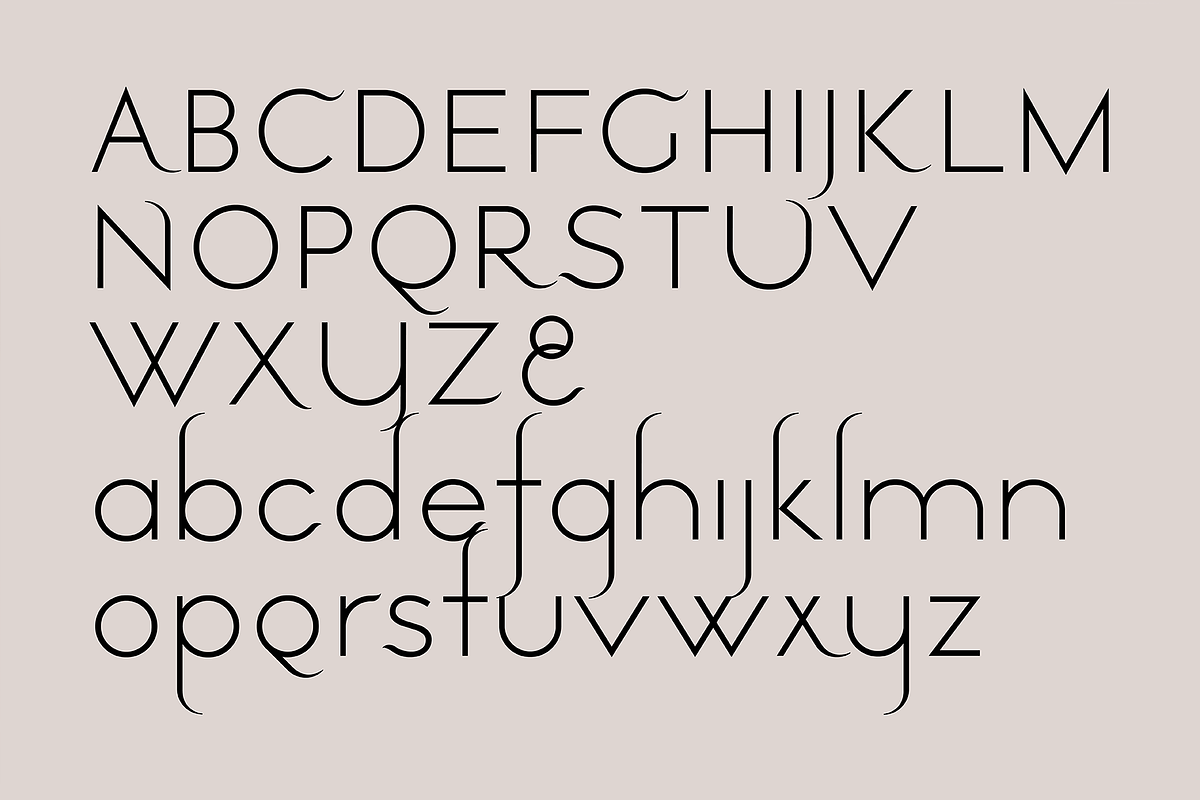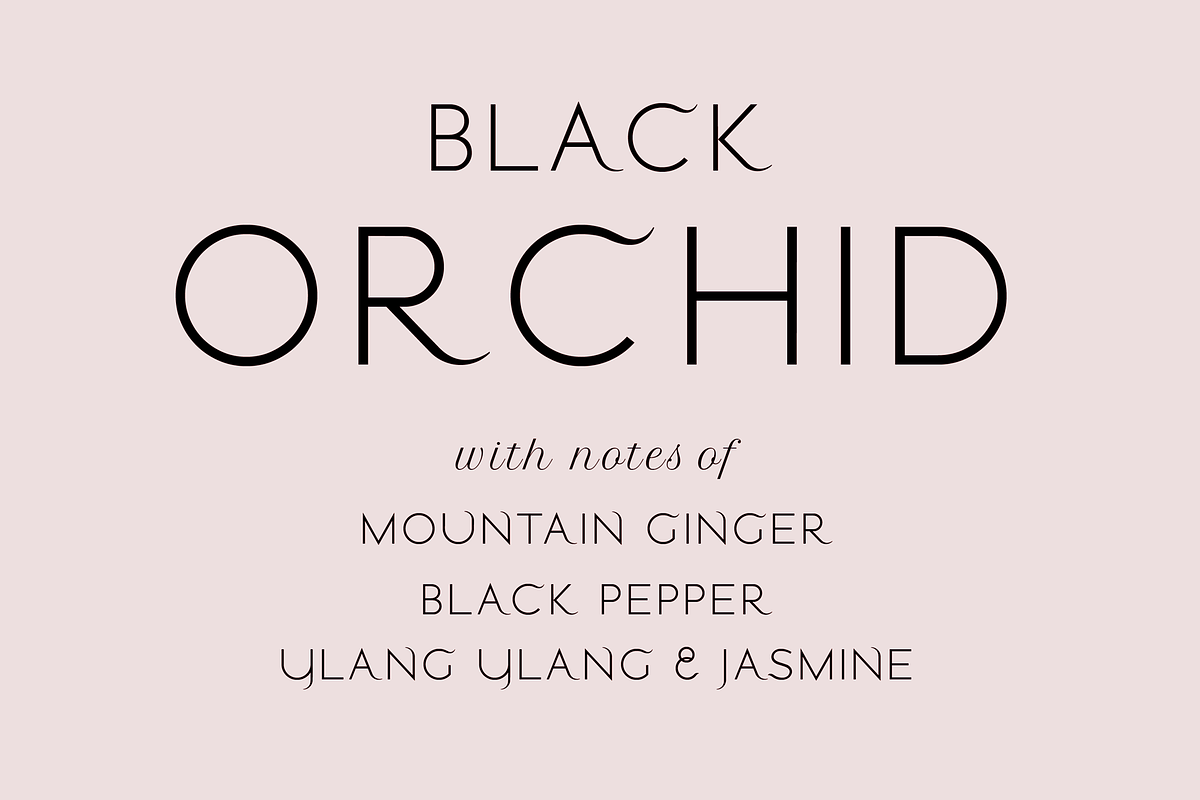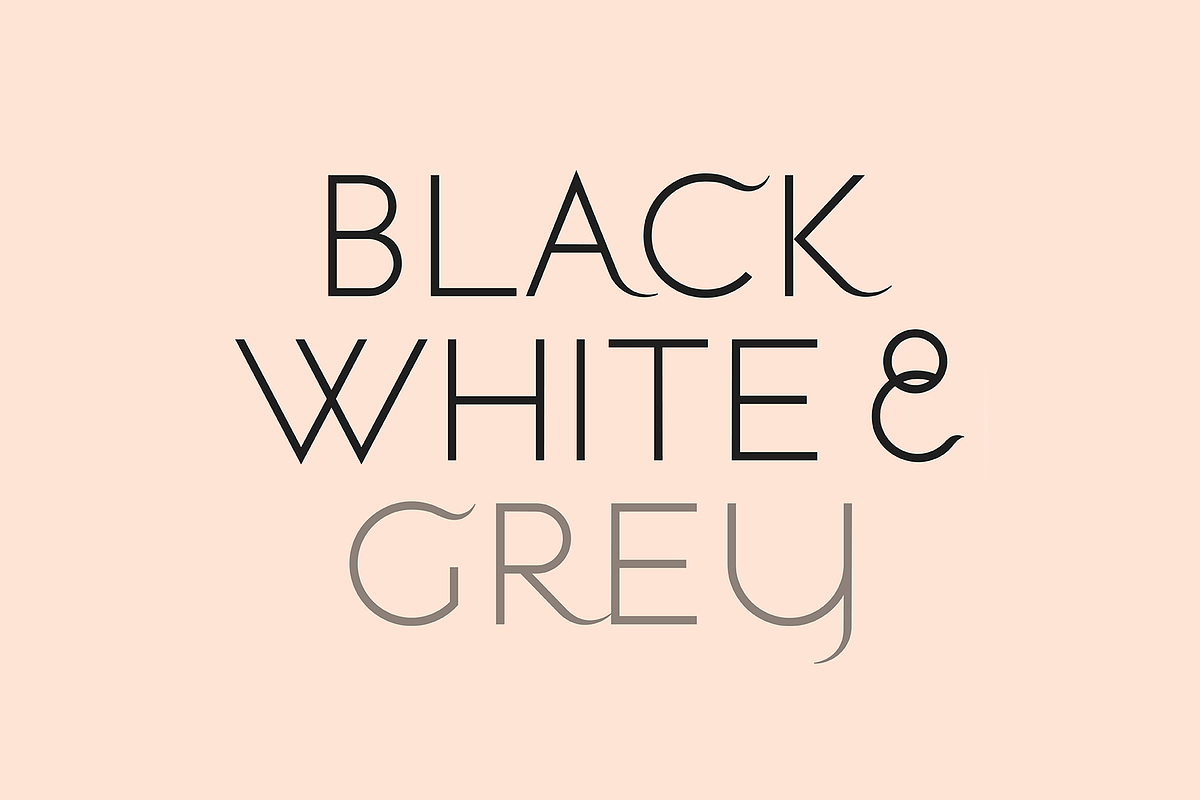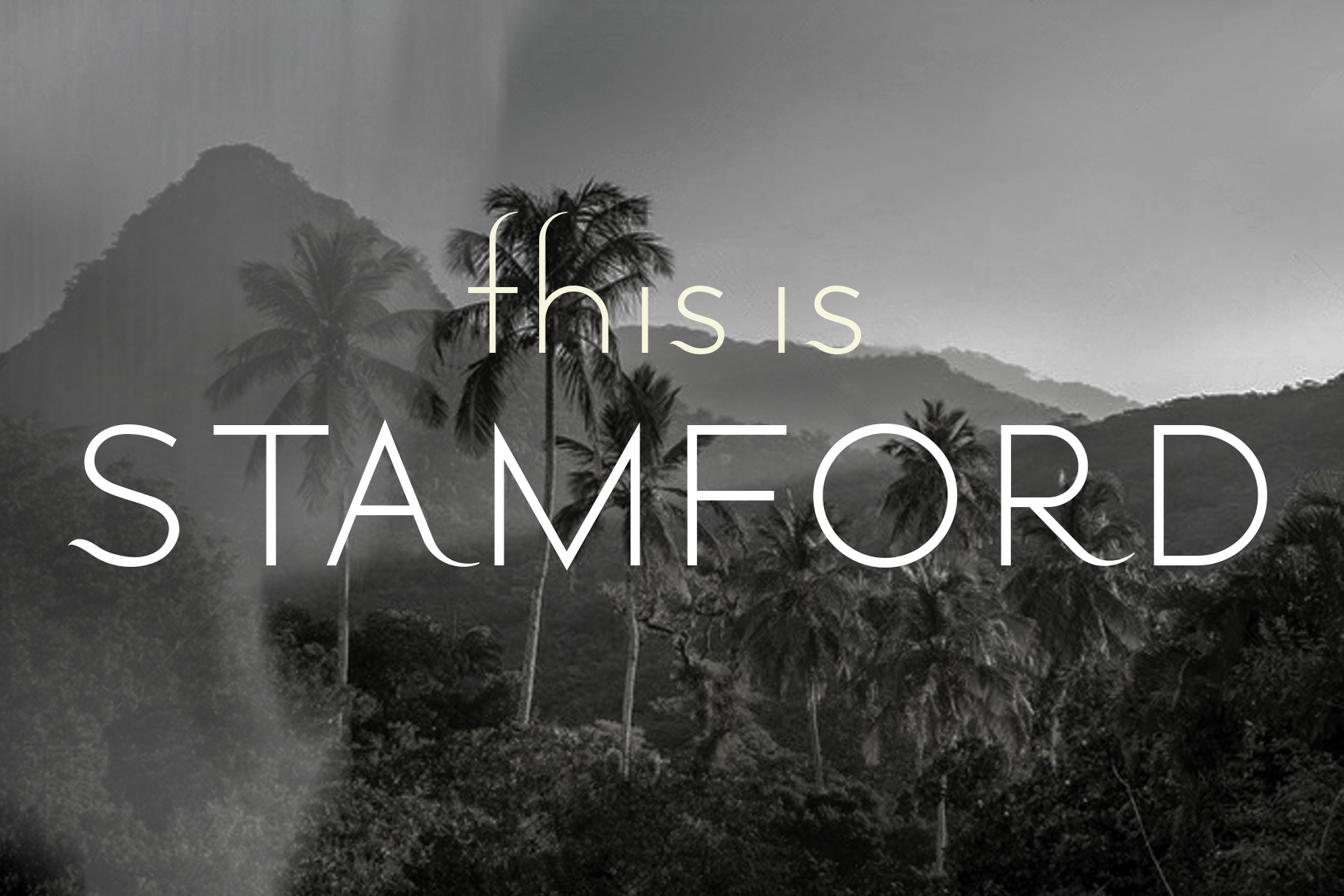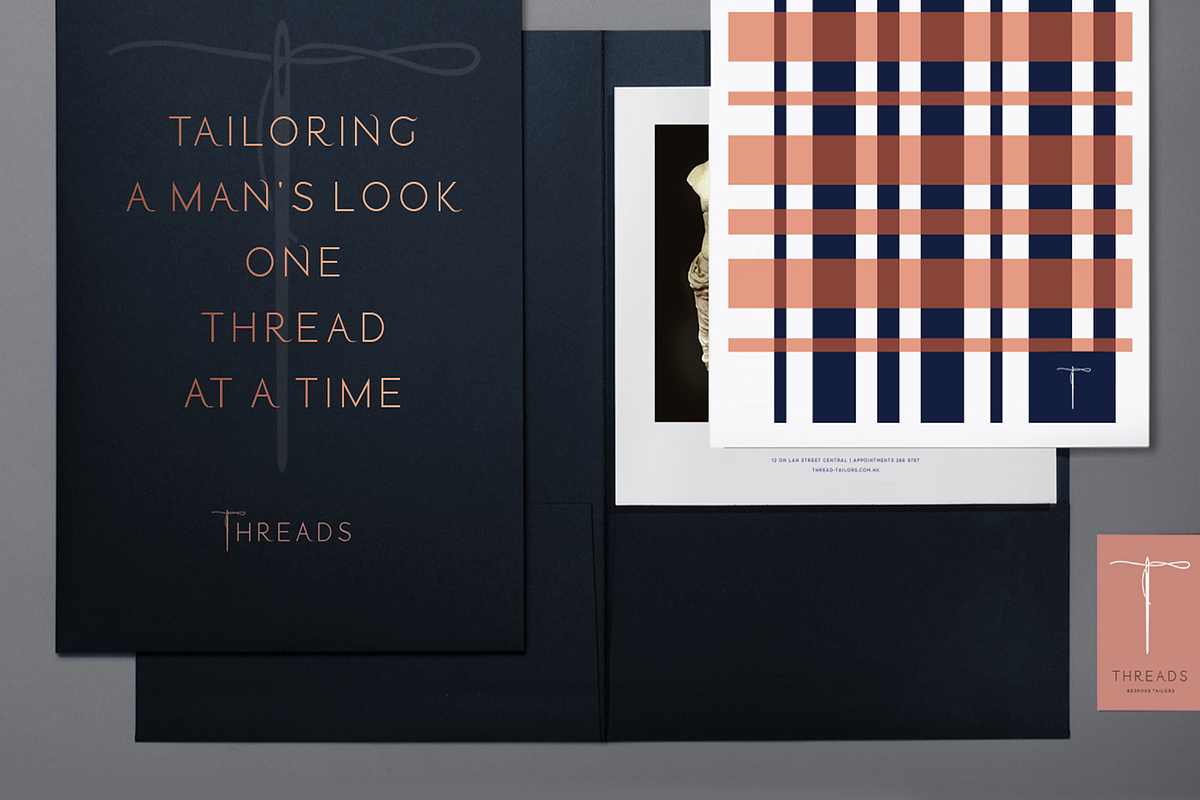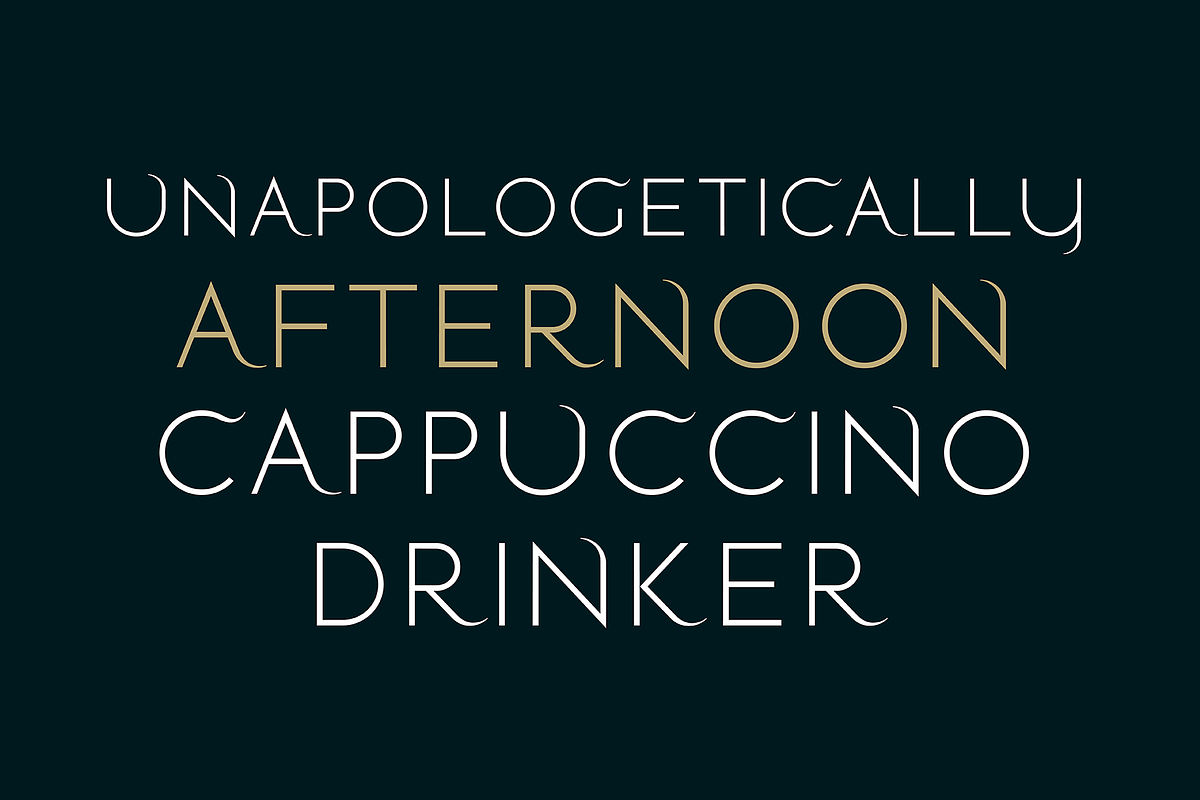
Stamford font family
Stamford is a beautifully expressive new 'crossover font' for designers from LostandFoundry. This stunning typeface has the look and feel of a modern sans serif font, but with chic, 'serif-like' touches. Named after the modern-day founder of Singapore, Sir Stamford Raffles, this font was inspired by my time as a creative living in Singapore. As the ascenders and descenders were designed to capture the essence of the swaying coconut palms that grace the front of the iconic Raffles Hotel there. Stamford is perfect when you want a unique modern font, yet one that is also elegant and stylish. Use Stamford in your design projects - in headlines, titles, logos, packaging designs and small amounts of body copy. And online on your websites, blogs, vlog titles, Youtube creator titles and social media post titles.